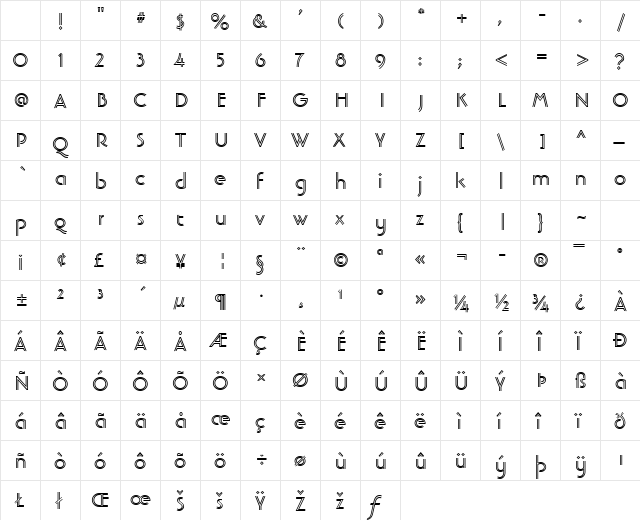
Banjoman Open Bold is a composed and adaptable typeface that performs quietly and consistently across a wide range of design contexts. Its bold stroke weight gives it real presence on the page.